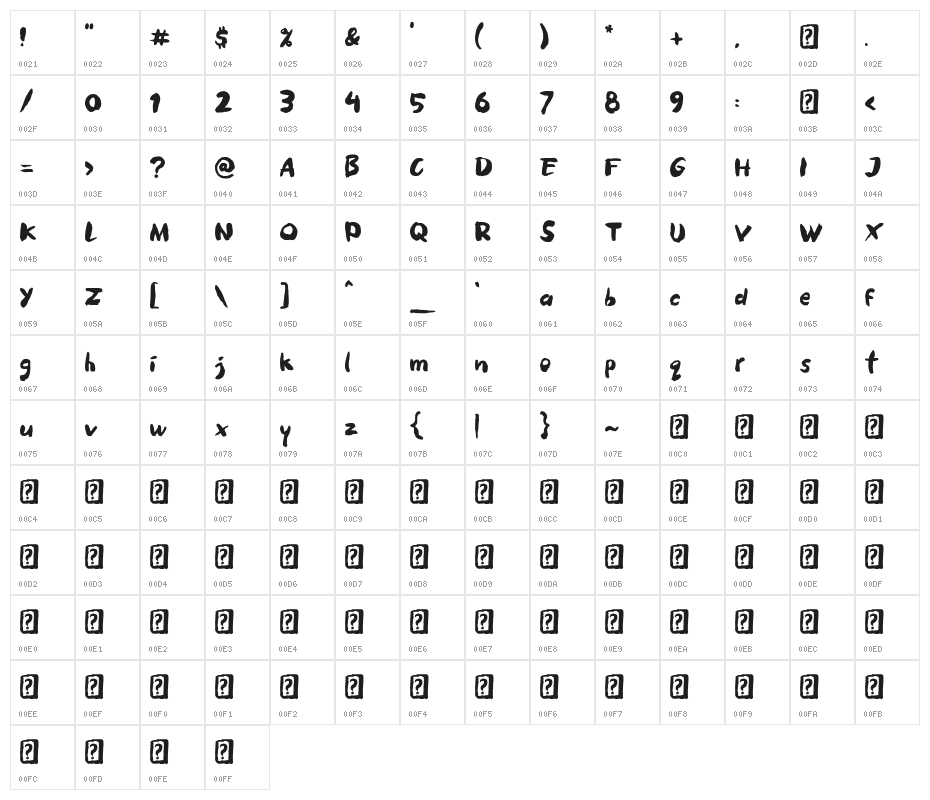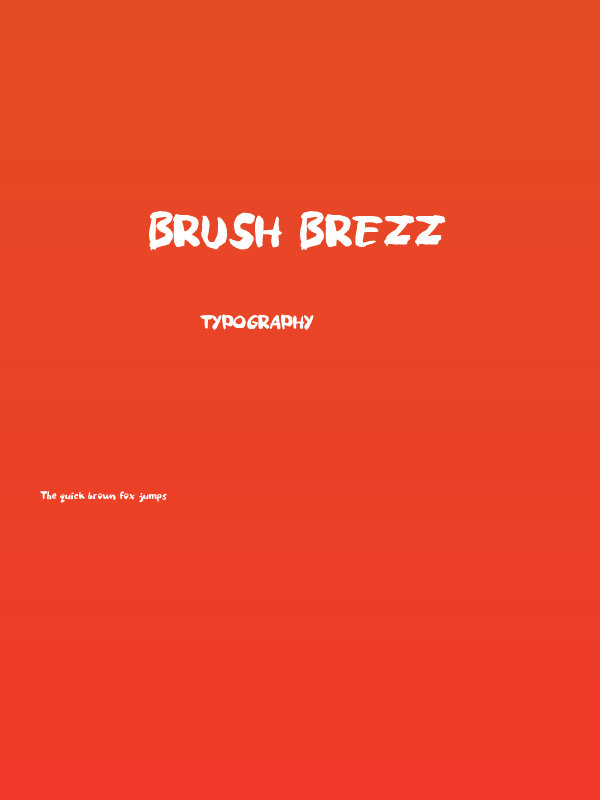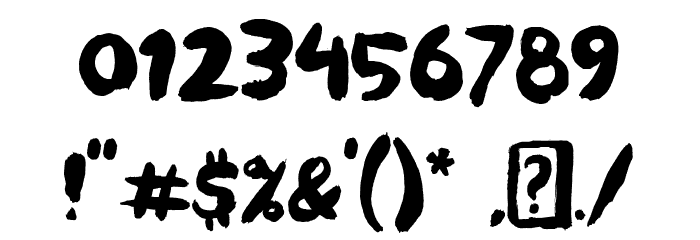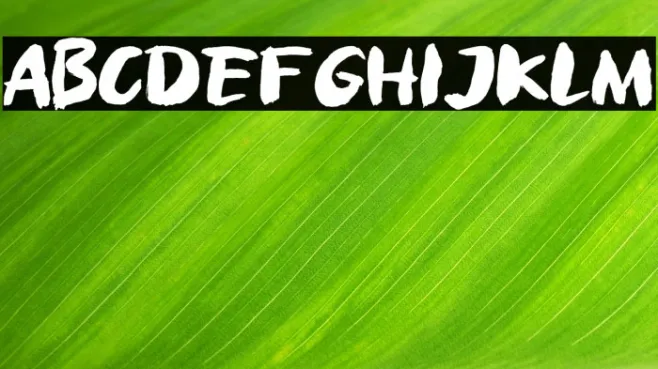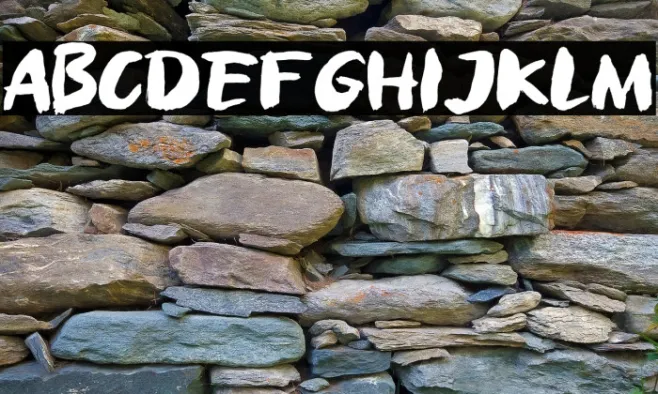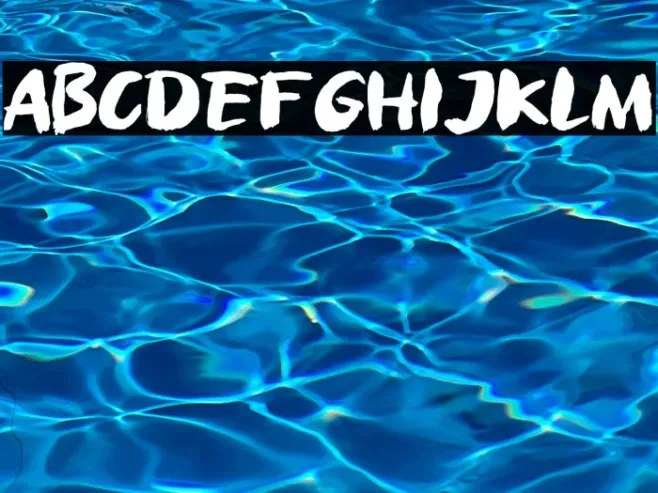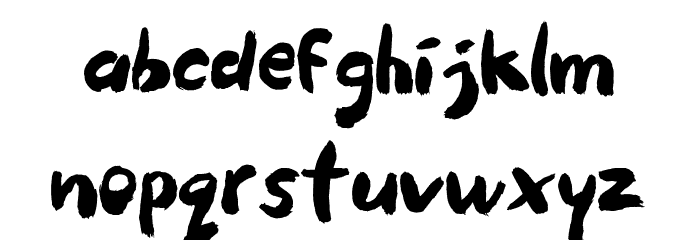
Brush Brezz Font
Brush Brezz Description
This font features a bold, brush-like style that exudes a sense of energy and creativity. The strokes are thick and uneven, giving it a hand-painted appearance. Each character has a dynamic flow, with slightly irregular edges that enhance its organic feel. The uppercase letters are robust and commanding, while the lowercase letters maintain a playful yet cohesive look. Numbers and special characters follow the same artistic style, making this font versatile for various creative applications. Its unique aesthetic makes it ideal for projects that require a personal touch or an artistic flair.
BRUSH-BREZZ UPPERCASE
BRUSH-BREZZ LOWERCASE
BRUSH-BREZZ OTHER CHARS